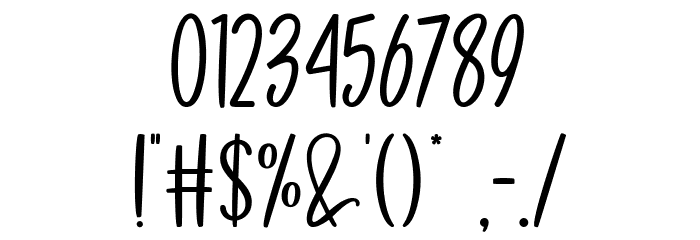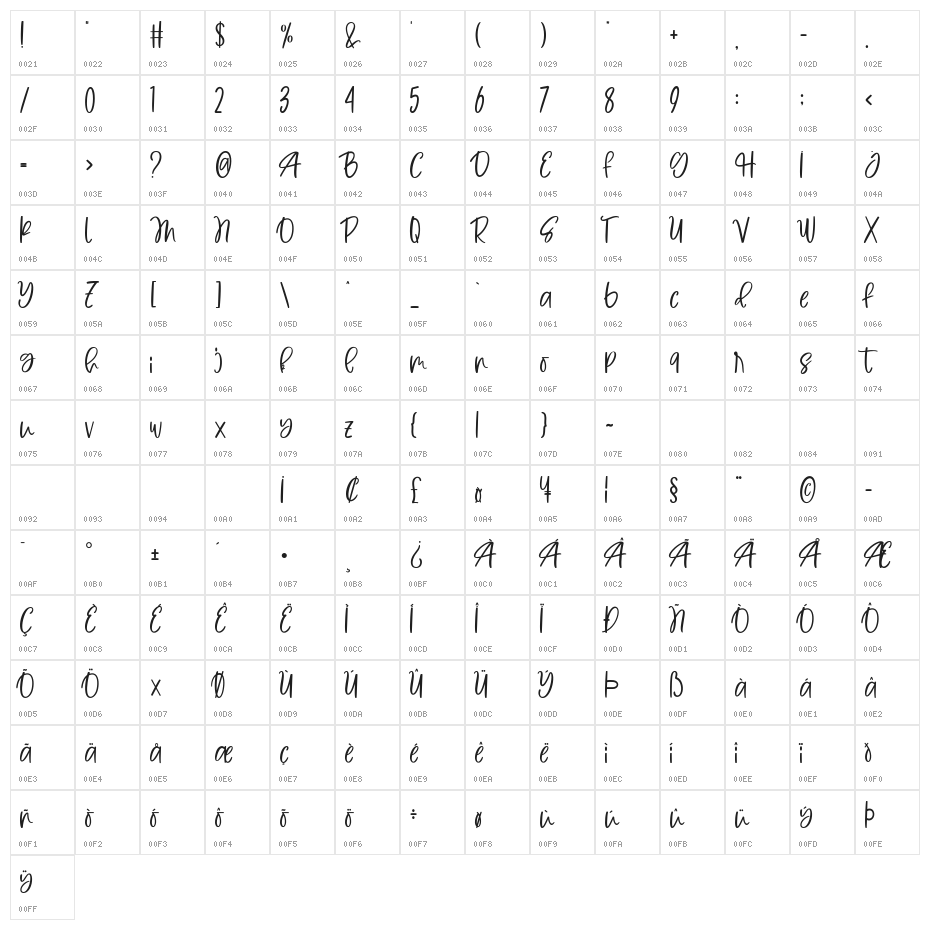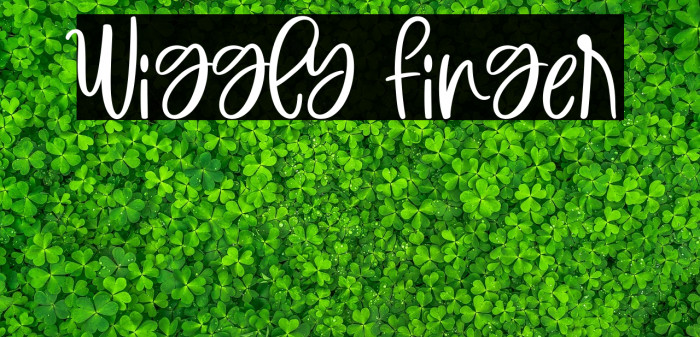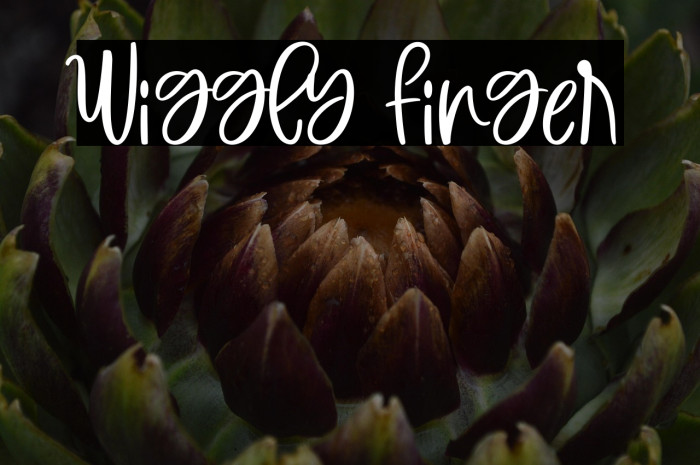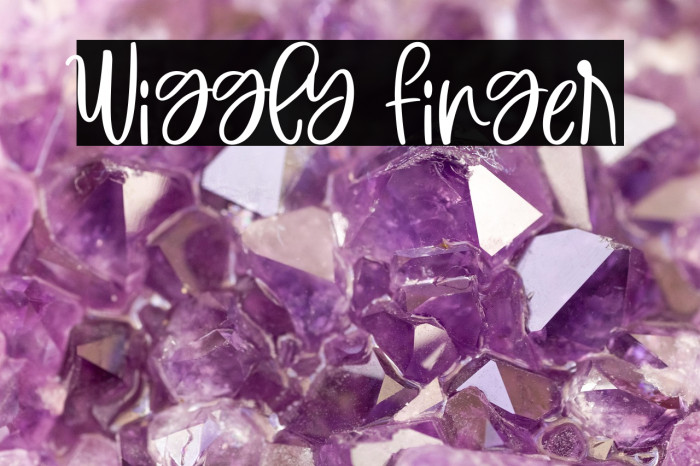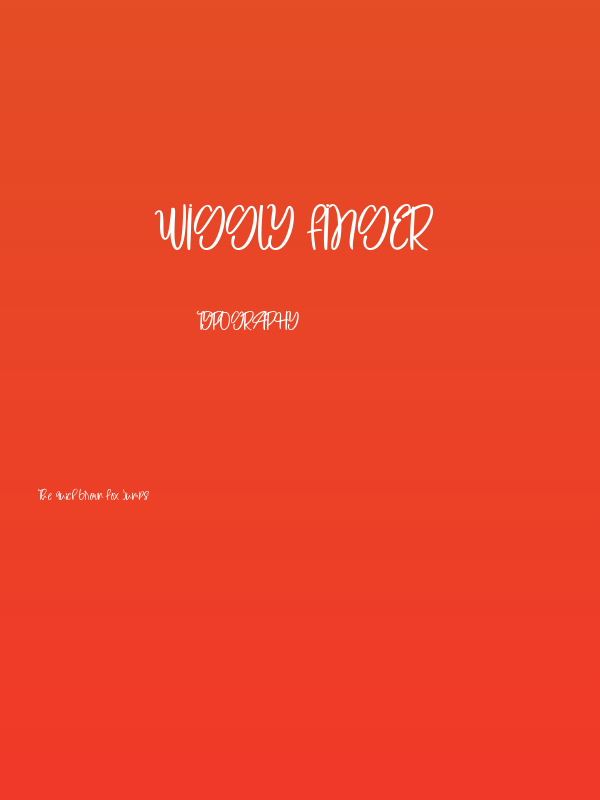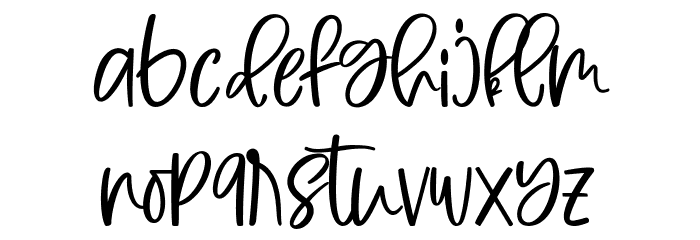
Wiggly Finger Font
Wiggly Finger Description
This font features a playful and whimsical script style with a handwritten appearance. The characters are fluid and dynamic, with a consistent flow that mimics natural handwriting. Each letter is uniquely crafted, offering a sense of individuality and charm. The uppercase letters are bold and expressive, while the lowercase letters maintain a smooth and flowing form. Numbers and special characters are designed to complement the overall style, maintaining the playful and informal aesthetic. The font's organic curves and loops give it a lively and energetic feel, making it suitable for creative and artistic projects.